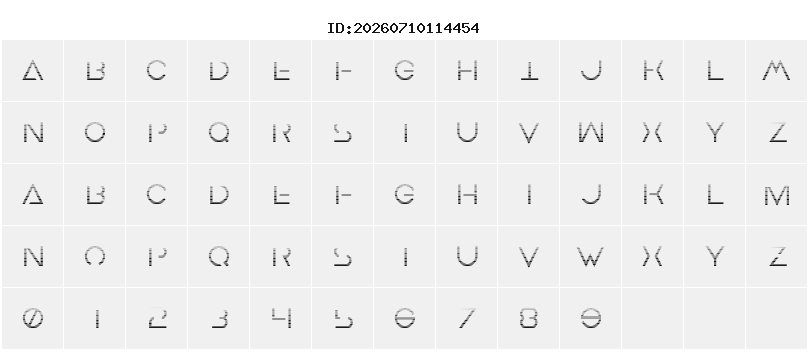
• Font Name: Earth Orbiter Gradient
• Full Font Name: Earth Orbiter Gradient
Earth Orbiter Gradient.ttf is a modern, elegant sans-serif font designed for ultimate readability and visual harmony. Perfect for branding, headlines, web design, and print materials.